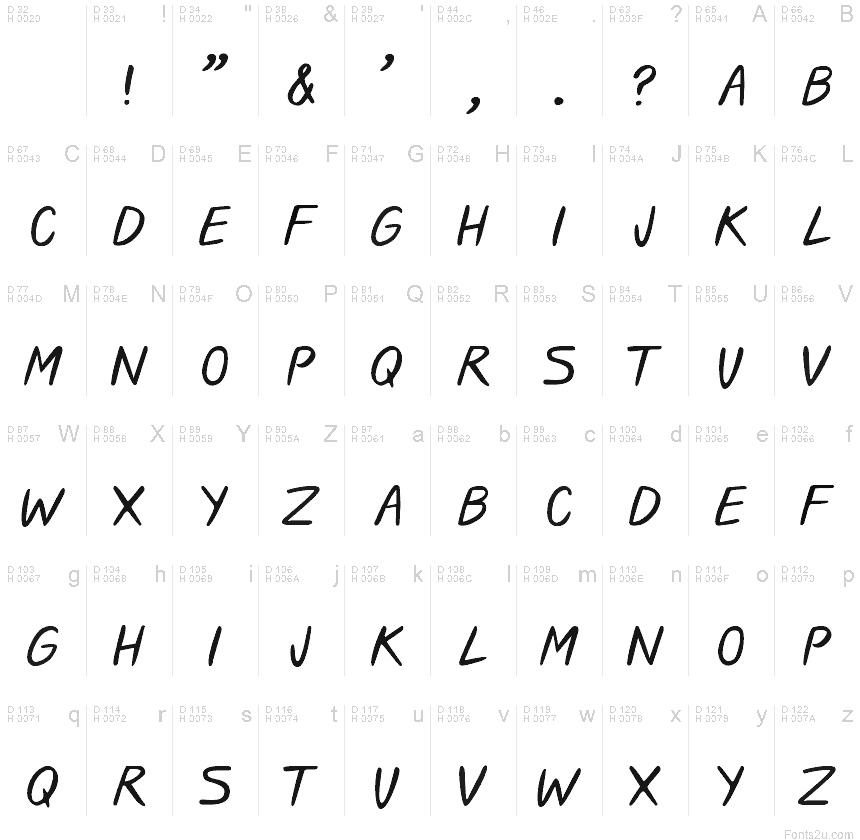
Black Roses
Black Roses font by Font Monger is a free handwritten font that hits that sweet spot between casual and controlled. Its slanted letters feel like quick, inky marker strokes, but the spacing stays even and easy to read, so headlines don’t fall apart at smaller sizes. There’s a subtle attitude to the forms—slightly sharp, slightly playful—that keeps your layouts from looking generic.
Using Black Roses, you can give energy to posters, quote graphics, album covers, social media banners, stickers, and edgy product packaging. This free font shines on short phrases and names where its loose rhythm can really breathe. For body copy or captions, pair it with a clean geometric sans serif and let Black Roses handle the bold, attention-grabbing lines.